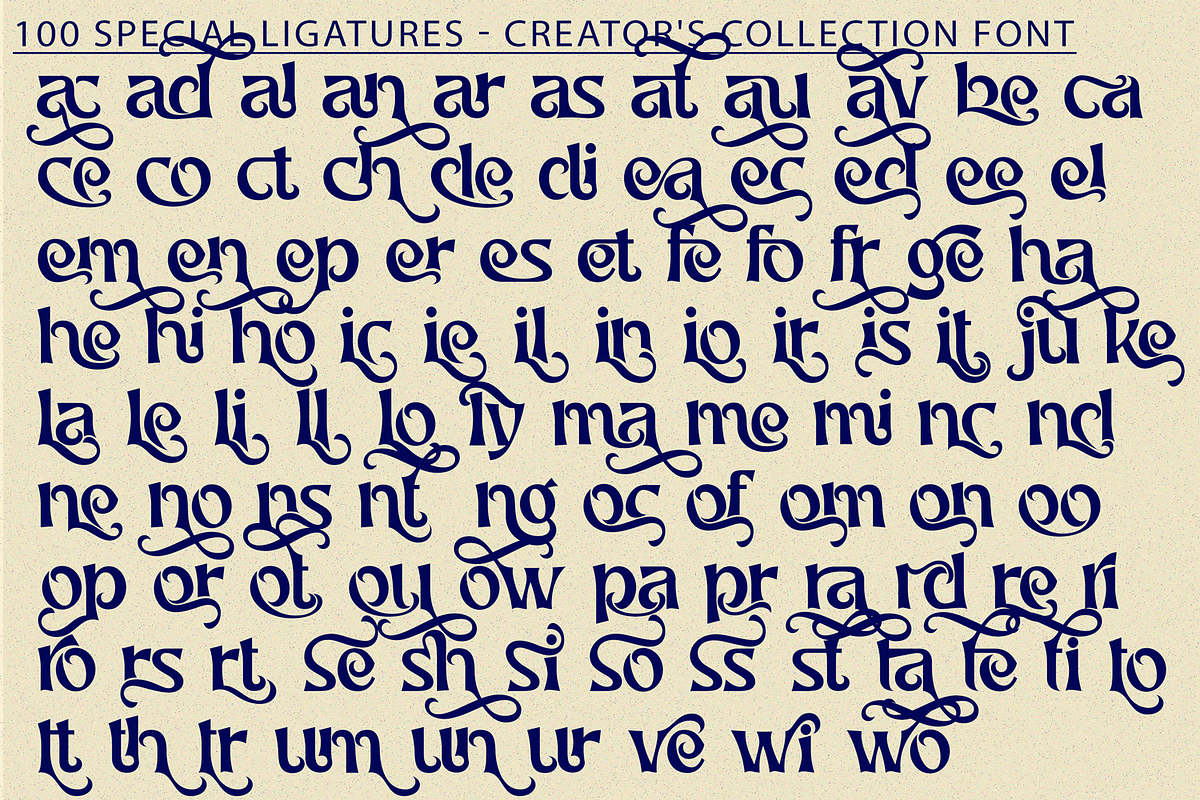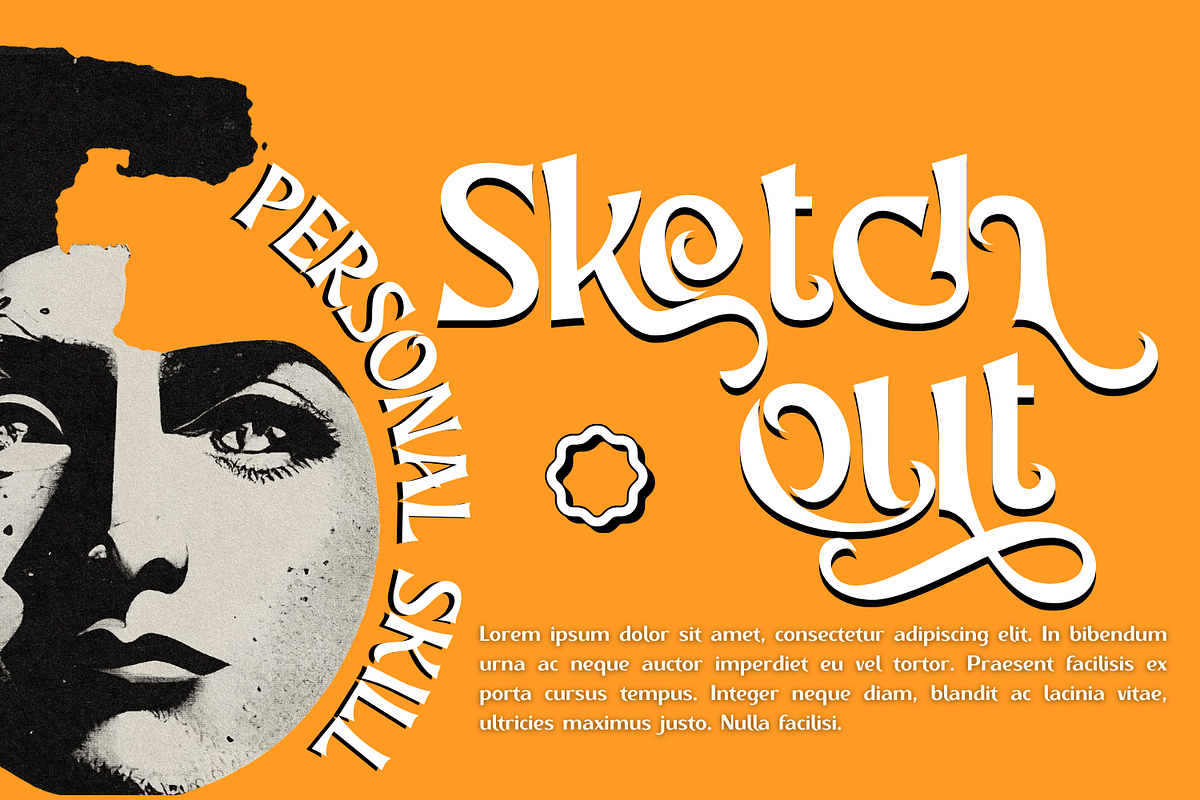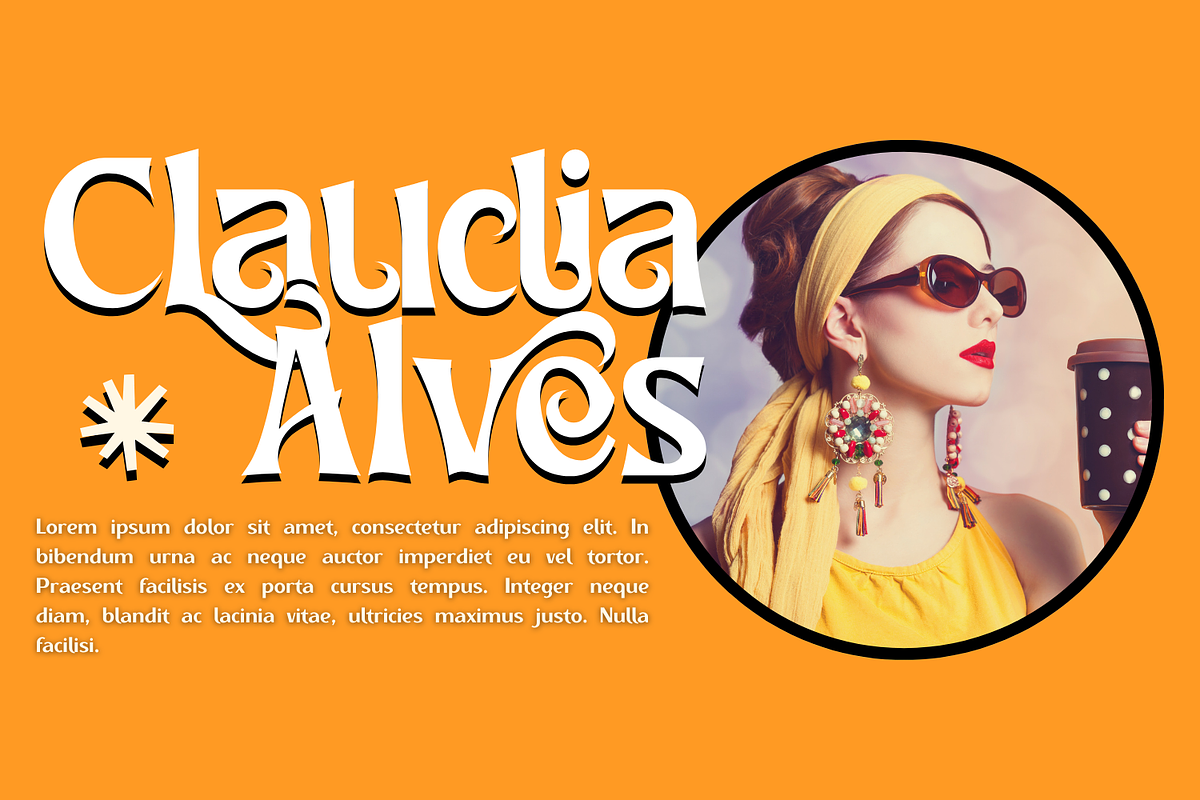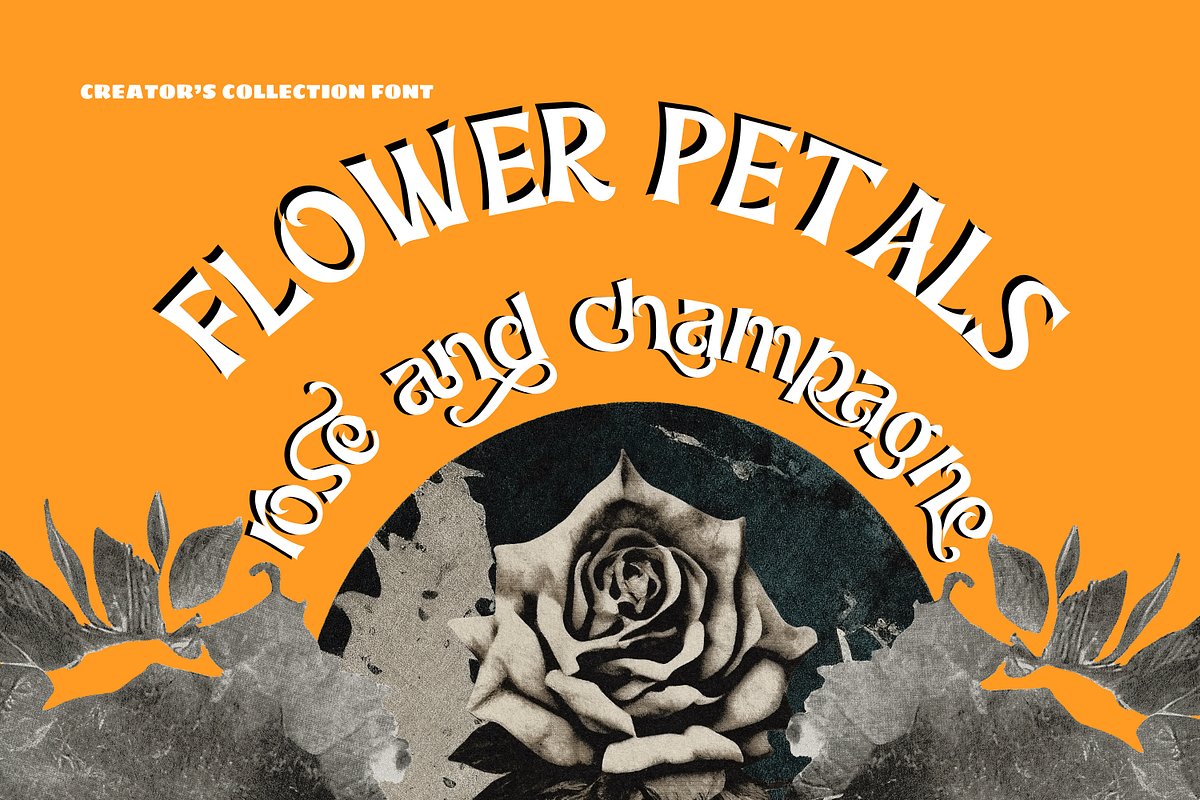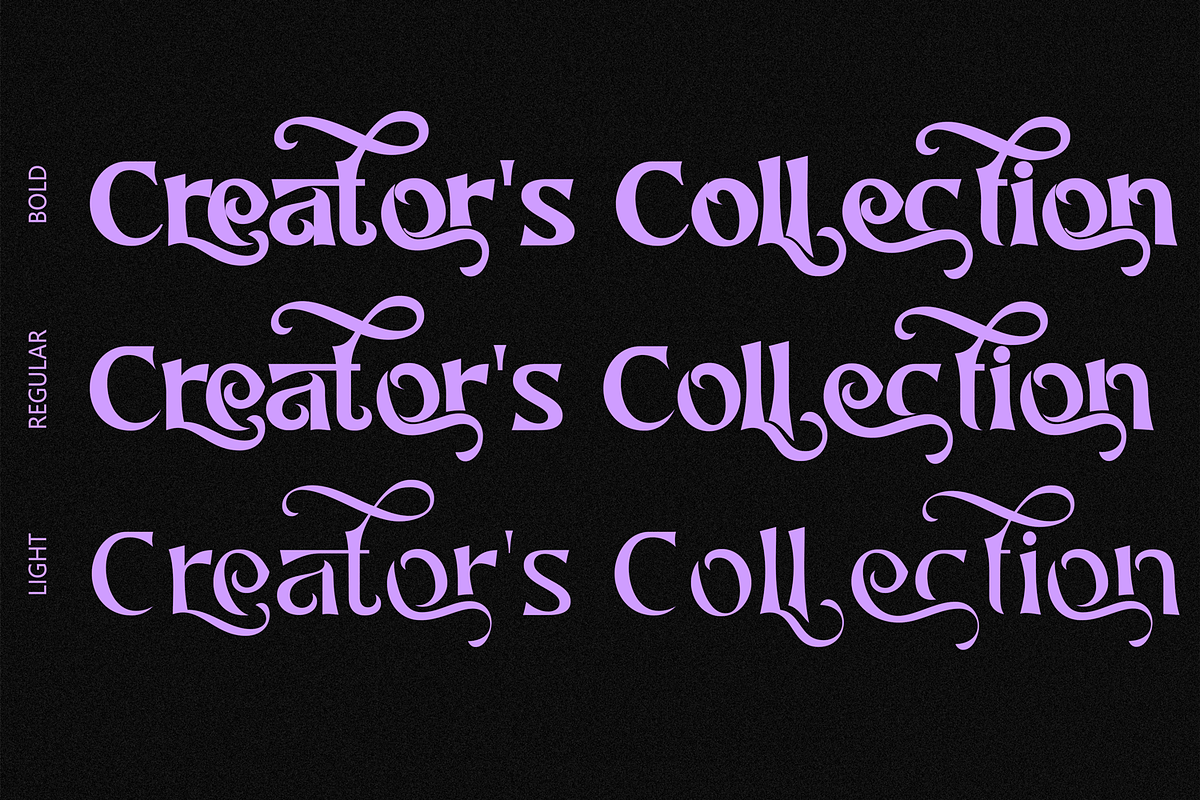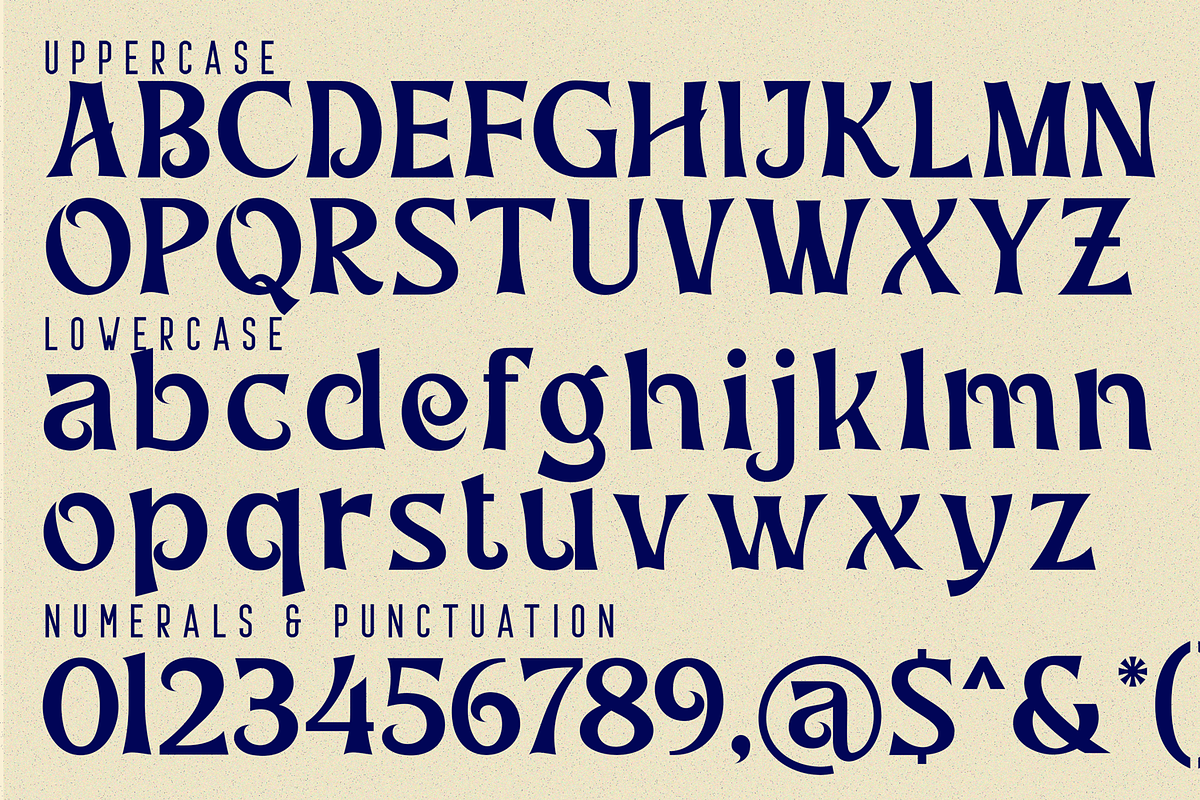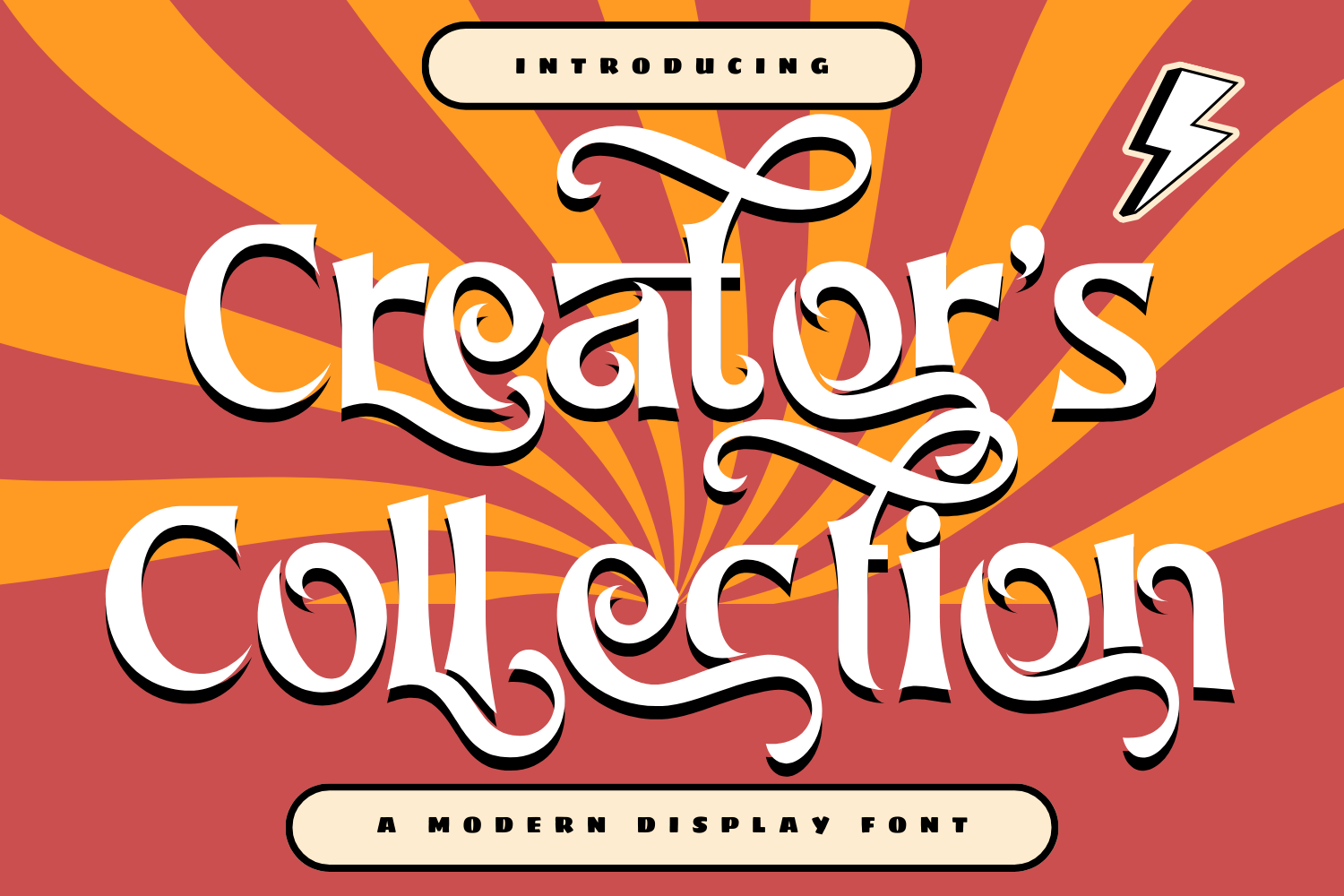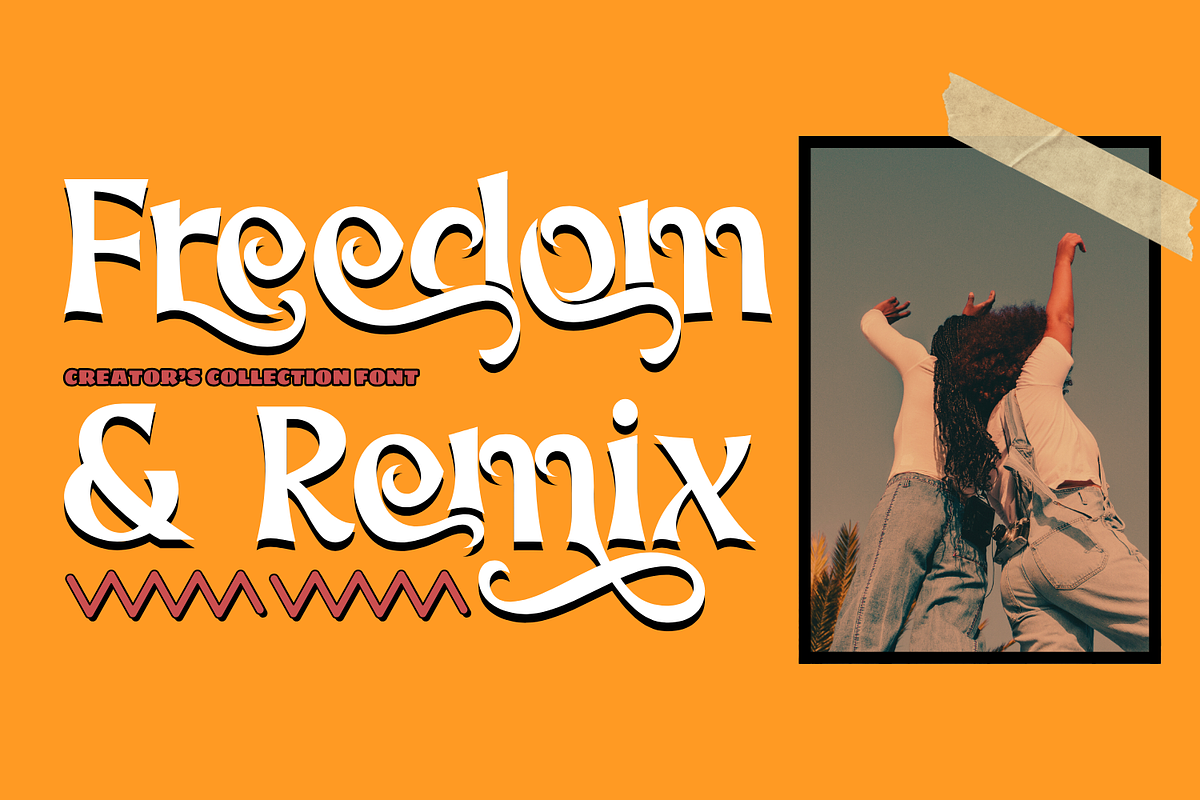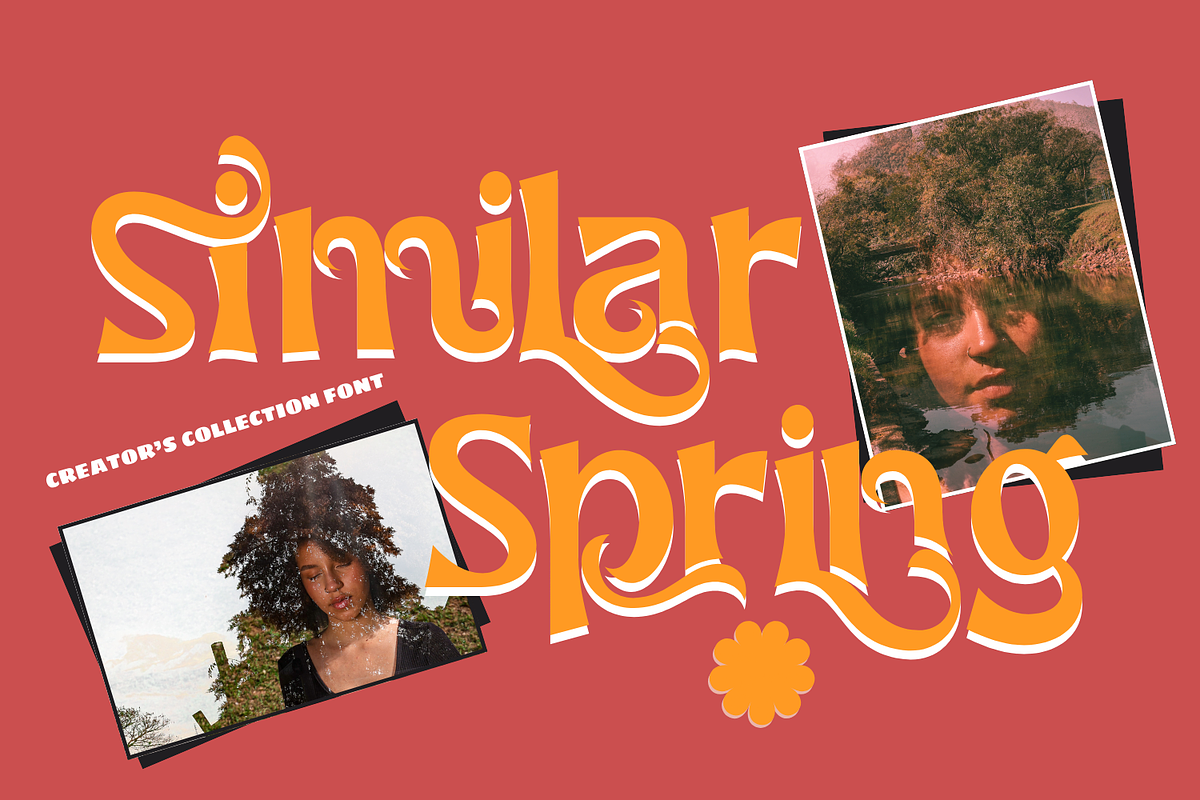
Creator's Collection | Ligature Font
Creator's Collection | Ligature Font – A Unique & Modern Ligature Typeface. Creator's Collection is a sleek and contemporary ligature typeface designed to add elegance and uniqueness to any design project. With smooth curves and beautifully crafted ligatures, this font is perfect for branding, logos, editorial design, packaging, and more.
🔹Features:
✔ Uppercase & Lowercase Letters – Designed for versatility and creativity.
✔ 100+ Special Ligatures – Creating seamless and stylish letter connections.
✔ Numerals & Punctuation – A complete set for professional typography.
✔ Accented Characters – Supporting multiple languages.
Whether you're aiming for a luxurious aesthetic or a modern minimalist look, Creator's Collection provides the perfect balance of sophistication and originality.
🔹About 100 ligatures combined with Stylistic Alternates Font:
ac ad al an ar as at au av be ca ce ch co ct de di ea ec ed ee el em en ep er es et fe fo fr ge ha he hi ho ie ic il in io ir is it ju ke la le li ll lo ly ma me mi nc nd ne ng no nt ns oc of om on oo op or ot ou ow pa pr ra rd re ri ro rs rt se sh si so ss st ta te th ti to tr tt um un ur ve wi wo